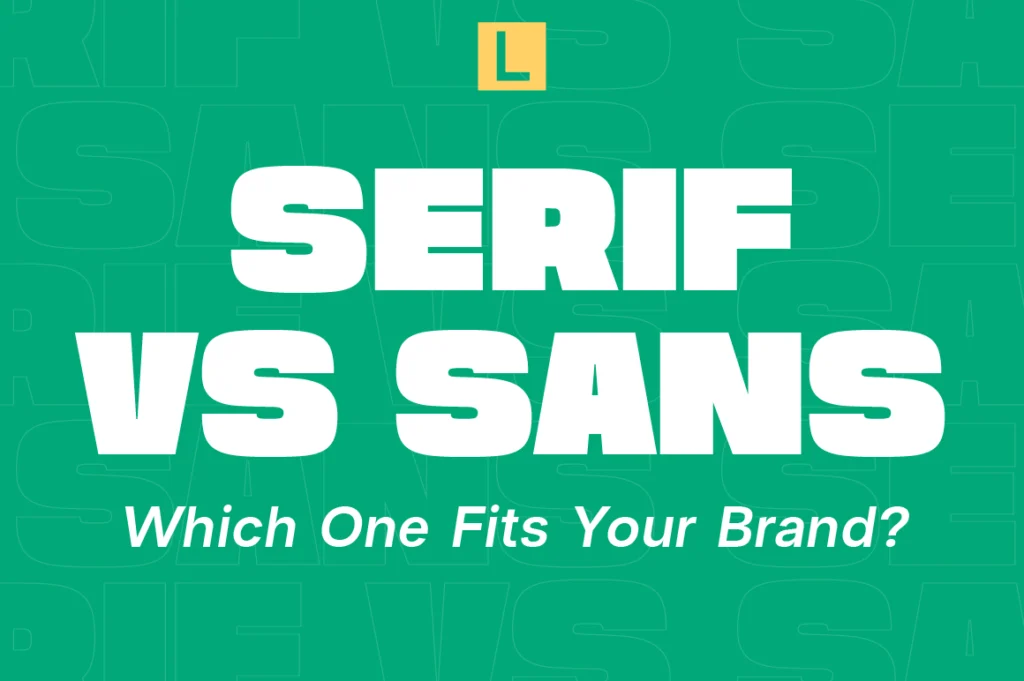
Serif vs Sans Serif: Which Font Style Is Better for Modern Brands?
When building a brand identity, one of the first typography decisions designers and business owners face is whether to use a serif or sans-serif font. While this choice may seem purely aesthetic, it can significantly influence how customers perceive a brand.
Typography affects first impressions, trust, readability, and personality. The font style a company chooses helps communicate whether it is modern, traditional, innovative, luxurious, approachable, or authoritative.
The debate between serif and sans serif fonts has existed for decades, yet the answer remains surprisingly nuanced. Neither category is inherently better. Instead, the most effective choice depends on a brand’s goals, audience, industry, and positioning.
This guide explores the differences between serif and sans serif typography, their strengths, weaknesses, and how modern brands can choose the right direction.
Understanding Serif Fonts
Serif fonts are typefaces that include small decorative strokes at the ends of letterforms.
These subtle details have been present in typography for centuries and are closely associated with traditional publishing, books, newspapers, and editorial design.
Popular serif fonts are often perceived as:
• Elegant
• Trustworthy
• Sophisticated
• Established
• Authoritative
Because of these associations, serif typography remains a popular choice among luxury brands, universities, law firms, editorial publications, and premium businesses.
Many iconic fashion and luxury brands continue to rely on serif typography because it communicates refinement and heritage.
Understanding Sans Serif Fonts
Sans serif literally means “without serif.”
These typefaces remove decorative strokes and focus on clean, simplified letterforms.
Modern sans serif fonts are frequently associated with:
• Simplicity
• Clarity
• Innovation
• Modernity
• Efficiency
As digital experiences became more important, sans serif typography gained widespread popularity due to its strong screen readability and minimalist appearance.
Today, many technology companies, startups, software platforms, and digital-first brands favor sans serif systems.
The rise of modern branding has only accelerated this trend.
A Brief History of the Serif vs Sans Serif Debate
For centuries, serif fonts dominated typography.
Books, newspapers, official documents, and publishing industries relied heavily on serif typefaces because they were considered easier to read in long-form printed text.
However, the digital revolution changed everything.
As websites, mobile devices, and digital interfaces became primary communication channels, designers began favoring cleaner typography systems.
Sans serif fonts offered:
• Better screen performance
• Simpler interfaces
• Contemporary aesthetics
• Greater flexibility
This shift explains why many modern brands have gradually moved toward sans serif identities over the past two decades.
Why Serif Fonts Still Matter
Despite the popularity of sans serif typography, serif fonts remain incredibly valuable.
They Communicate Trust
Serif fonts often feel established and reliable.
Many institutions use serif typography because it reinforces credibility.
They Create Premium Positioning
Luxury branding frequently benefits from serif typefaces because they suggest elegance and craftsmanship.
They Support Editorial Design
Magazines, publishing platforms, and content-focused brands often leverage serif typography to create a sophisticated reading experience.
They Feel Timeless
Well-designed serif fonts rarely appear overly trendy.
This makes them attractive for brands seeking longevity.
Why Sans Serif Fonts Dominate Modern Branding
There is a reason so many contemporary brands embrace sans serif typography.
They Feel Modern
Sans serif fonts align naturally with today’s digital environments.
They Improve Readability
Clean letterforms often perform exceptionally well across websites and mobile devices.
They Support Minimalist Design
Modern branding trends frequently emphasize simplicity.
Sans serif typography complements this aesthetic perfectly.
They Scale Easily
From mobile interfaces to billboards, sans serif systems often maintain clarity across multiple sizes.
When Should You Choose Serif Fonts?
Serif typography is often a strong choice when a brand wants to communicate:
• Luxury
• Heritage
• Authority
• Craftsmanship
• Sophistication
• Editorial influence
Industries that commonly benefit from serif typography include:
• Fashion
• Hospitality
• Publishing
• Beauty
• Luxury goods
• Personal branding
Brands seeking a premium, established appearance frequently find serif typography particularly effective.
When Should You Choose Sans Serif Fonts?
Sans serif typography tends to work well for brands focused on:
• Innovation
• Simplicity
• Technology
• Accessibility
• Modern communication
• Digital experiences
Common examples include:
• SaaS companies
• Startups
• Technology brands
• Creative agencies
• E-commerce platforms
• Professional services
The clean appearance of sans serif typography helps create approachable and contemporary visual identities.
The Rise of Editorial Branding
One of the most interesting typography trends in recent years is the growth of editorial branding.
Rather than choosing purely traditional serif or purely modern sans serif systems, many brands are blending both approaches.
A common formula looks like this:
Editorial Serif Headlines
Used to create elegance and personality.
Clean Sans Serif Body Text
Used to improve readability and usability.
This combination allows brands to balance sophistication and practicality.
As a result, editorial-inspired branding has become increasingly popular among creative businesses, lifestyle brands, and premium startups.
Typography Is About Positioning, Not Rules
Many businesses approach typography as if there is a universally correct answer.
There isn’t.
The best typeface is the one that aligns with a brand’s positioning.
For example:
A luxury fashion brand may benefit from a refined serif system.
A modern software startup may benefit from a contemporary sans-serif family.
A creative studio may combine both.
Successful typography decisions are strategic rather than trend-driven.
The goal is not simply choosing a beautiful font.
The goal is selecting a visual language that supports the brand’s identity.
Examples for Modern Branding
Different typography styles serve different branding goals.
For Editorial and Luxury Positioning
Fonts with refined details and sophisticated proportions often perform well.
Examples from Lettertype Studio include:
These typefaces help create premium and elegant visual experiences.
For Modern Business and Digital Brands
Clean sans serif systems frequently provide the flexibility needed for contemporary branding.
Examples include:
These fonts help communicate clarity, professionalism, and modernity.
So Which One Is Better?
The short answer:
Neither.
Serif fonts are not outdated.
Sans serif fonts are not automatically superior.
Both categories remain highly relevant in modern branding.
The right choice depends on:
• Audience
• Industry
• Brand personality
• Communication goals
• Long-term positioning
Many of today’s strongest visual identities successfully combine elements from both traditions.
Rather than following trends blindly, businesses should focus on selecting typography that reflects who they are and how they want to be perceived.
Conclusion
The serif versus sans serif debate continues because both styles offer unique advantages.
Serif typography excels at communicating elegance, authority, and heritage. Sans serif typography thrives in modern, digital-first environments where clarity and simplicity are essential.
For most brands, the question is not which category is objectively better. The more important question is which style best supports the brand’s identity, audience, and long-term goals.
Typography remains one of the most powerful tools in branding. Whether choosing a sophisticated serif, a clean sans serif, or a combination of both, thoughtful typography decisions can significantly influence perception, recognition, and trust.
The best brands understand that fonts are not simply design assets—they are strategic business tools.